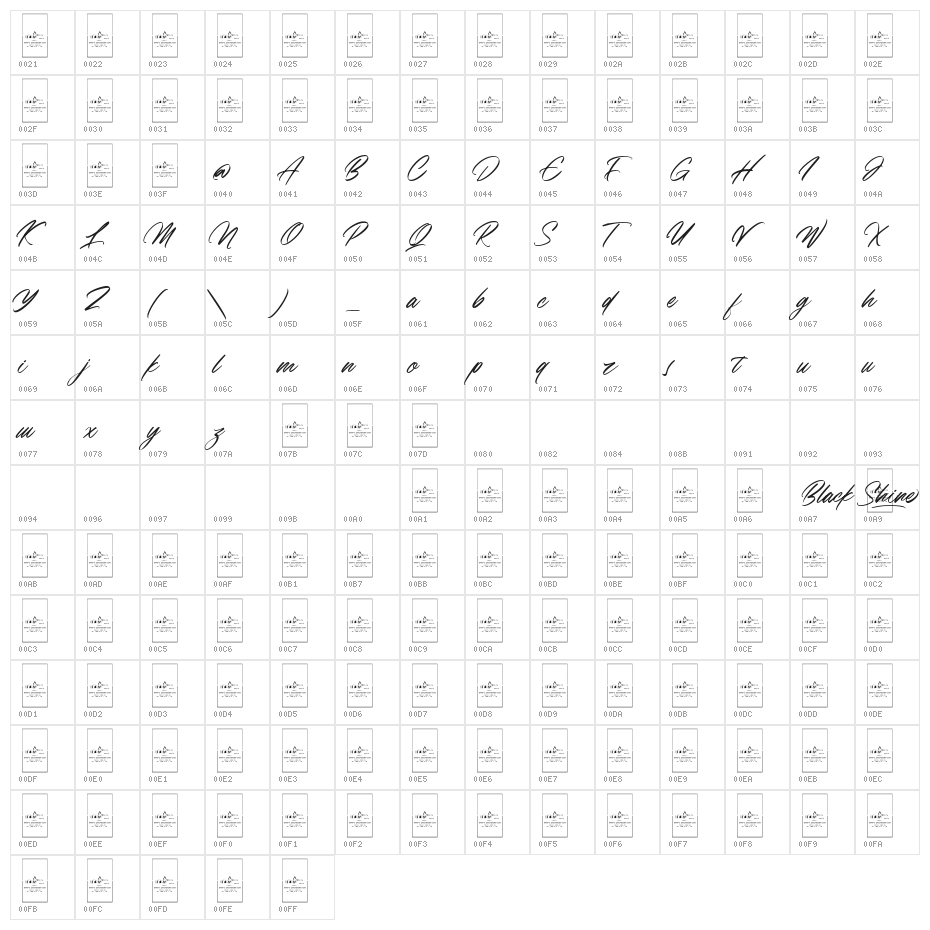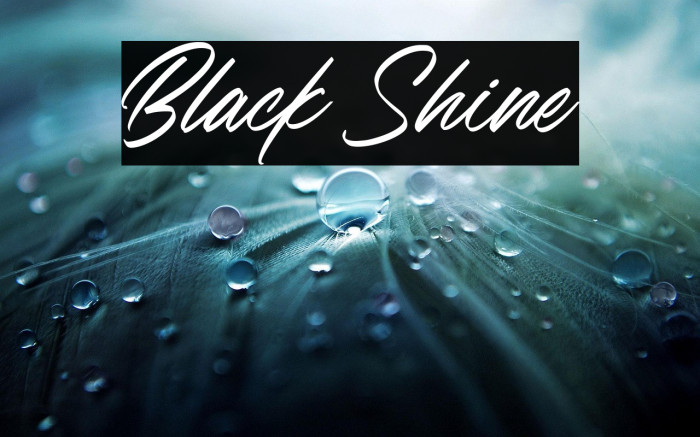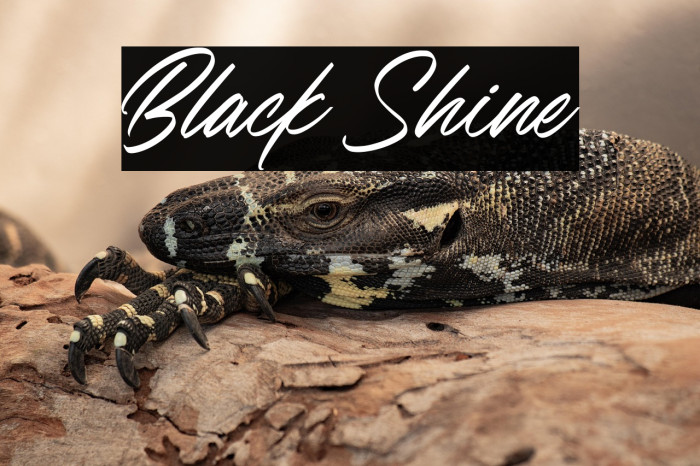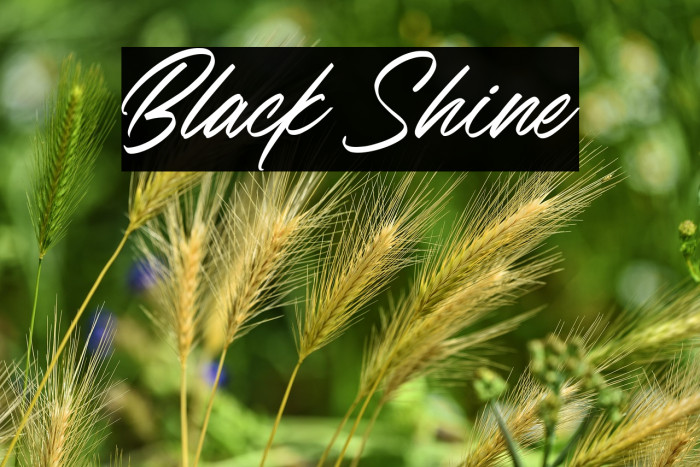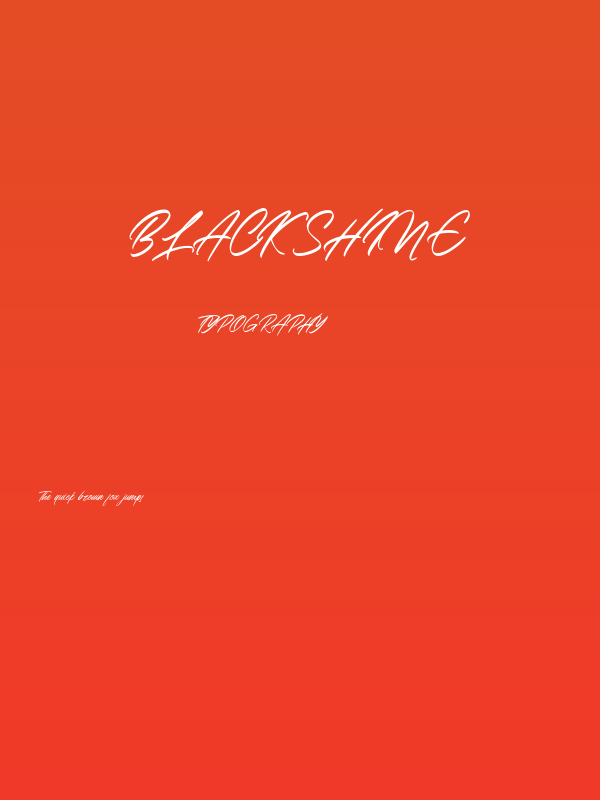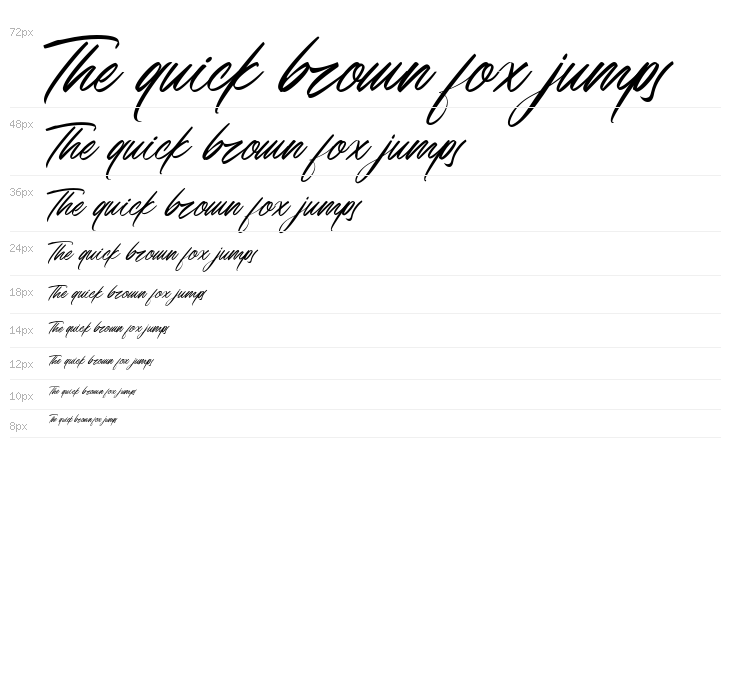
Black Shine Font
Black Shine Description
This font exudes a dynamic and elegant flair, characterized by its flowing, cursive script style. The letters are interconnected with smooth, sweeping strokes that convey a sense of motion and grace. The uppercase letters are bold and prominent, while the lowercase letters maintain a consistent fluidity, enhancing readability. The numerals and special characters are crafted with the same attention to detail, ensuring a cohesive look across all text elements. This font is ideal for projects that require a touch of sophistication and artistic expression.
| Overall Style | Elegant, Artistic |
| Proposed Projects | Ideal for wedding invitations, branding, logos, and elegant stationery designs. |